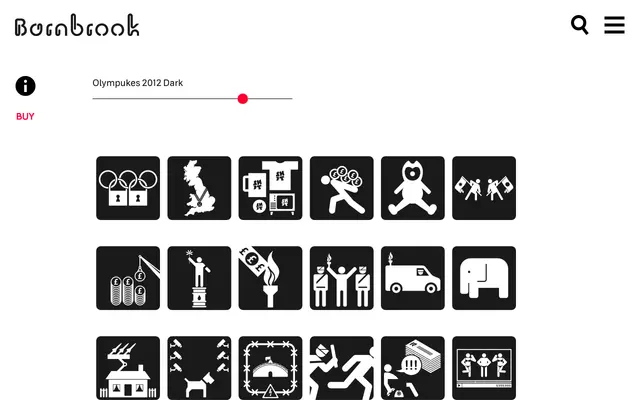
Olympukes 2012
A satirical pictogram font released for the 2012 London Olympics, extending Barnbrook's ongoing Olympukes project to critique the contradictions and commercialism of the modern Games.
Originally begun in 2004, the Olympukes project uses pictographic symbols in the style of official Olympic signage to tell an unofficial, critical story of the Games. The 2012 edition responds to the specific context of London hosting: austerity politics, surveillance culture, and corporate excess. It functions as political commentary delivered through the visual language of sport iconography.
A set of pictographic symbols rather than a conventional typeface; classified as display due to its purely symbolic, non-alphabetic character set used for editorial and satirical purposes.